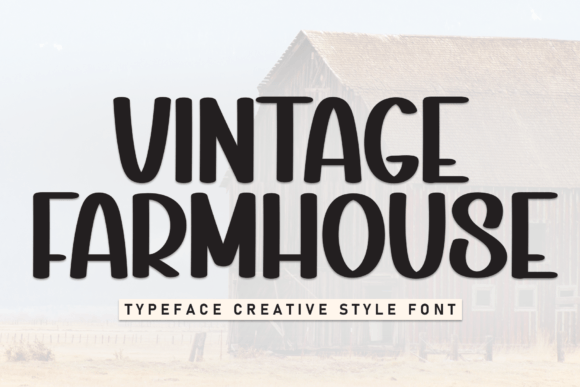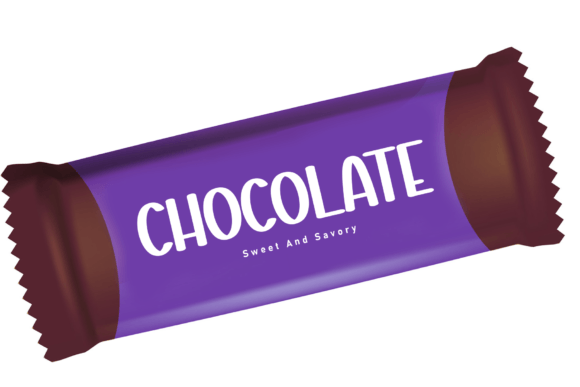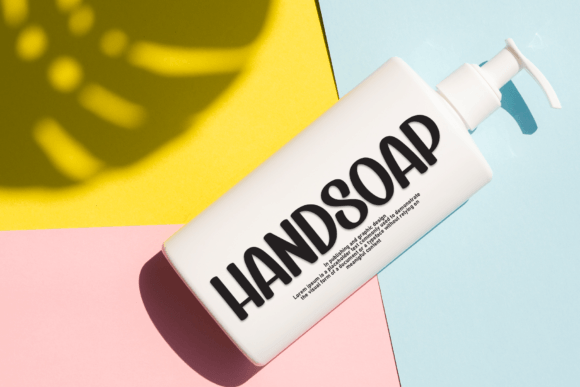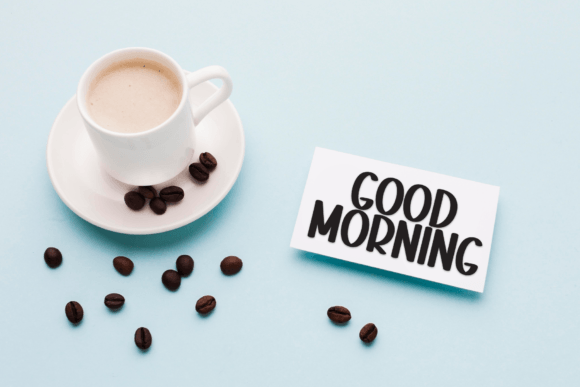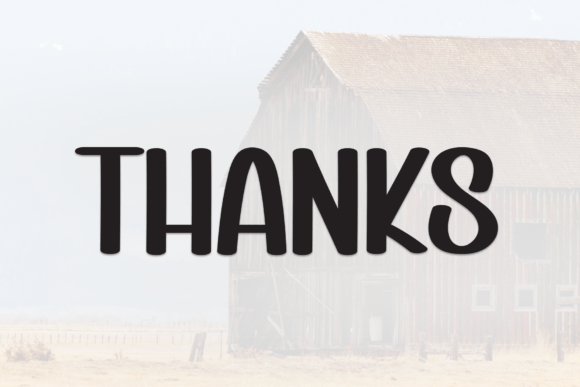
Vintage Farmhouse Font
Vintage is a sweet and friendly handwritten font. Its natural and unique style makes it incredibly fitting to a large pool of designs. The only limit is your imagination!